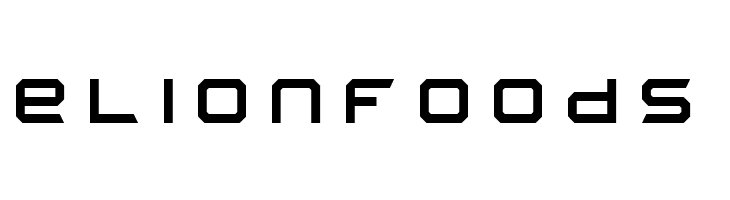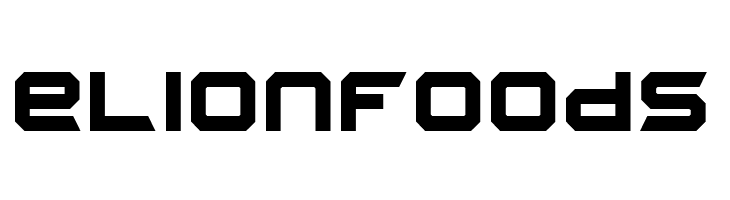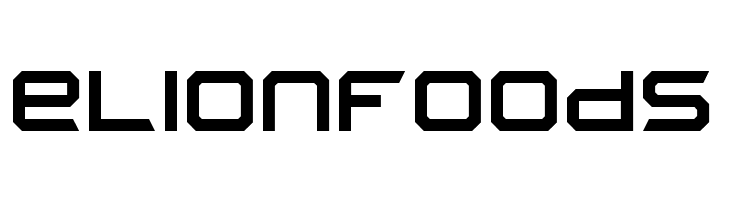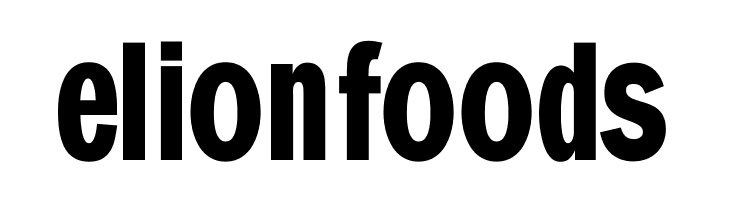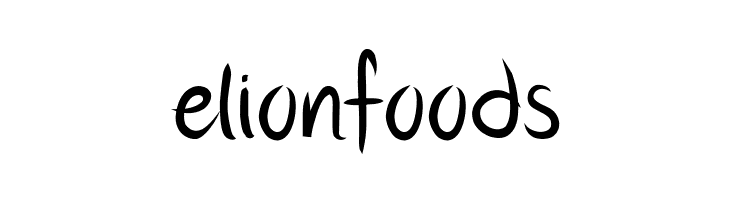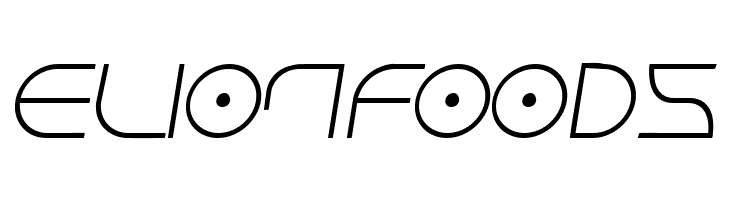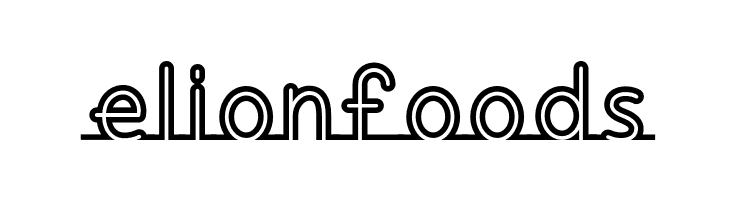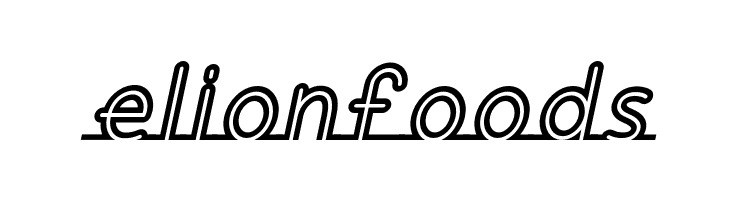
A futuristic, geometric font with angular and linear strokes.
( Google Web Fonts )
A playful, retro-inspired font with bold, quirky letterforms.
( TomChew - Tommy Suhartomo )
A modern italic font with smooth lines and a sleek, dynamic style.
( TomChew - Tommy Suhartomo )
A modern, outlined font with geometric lines and consistent stroke width.
( Fonts by Pia Hed Aspell - www.piah.se )
A lively handwritten font with fluid strokes and dynamic character.
A bold, modern font with strong, uniform characters ideal for impactful designs.
( Fonts by Isaac K )
A bold, geometric font with sharp angles and a futuristic look.
( Fonts by Isaac K )
A geometric, angular font with a futuristic and modern design.
( Fonts by Isaac K )
A futuristic, geometric font with angular, block-like letterforms.